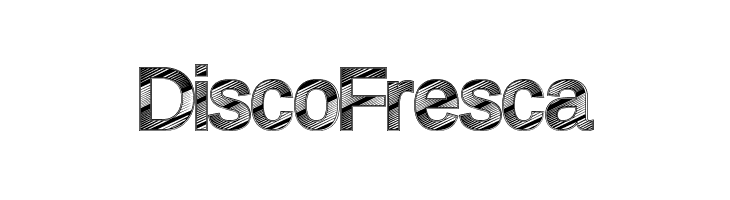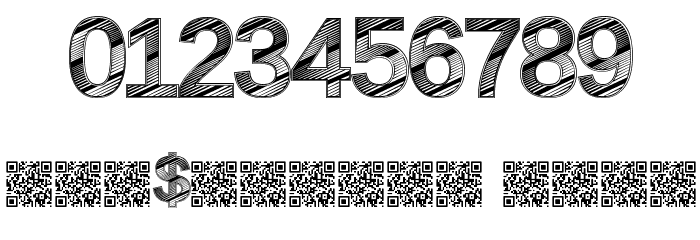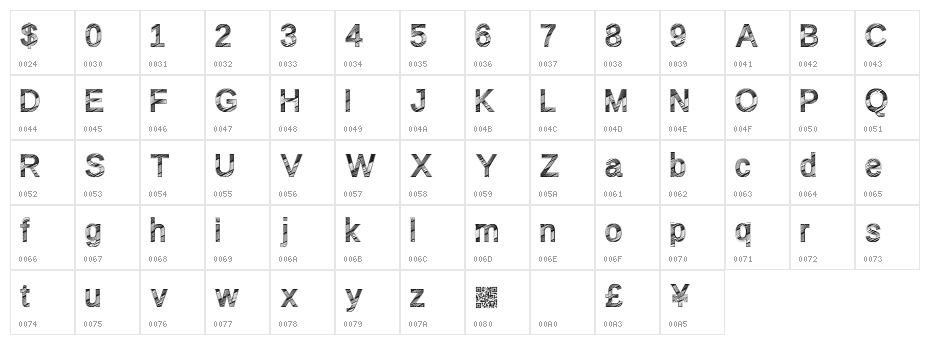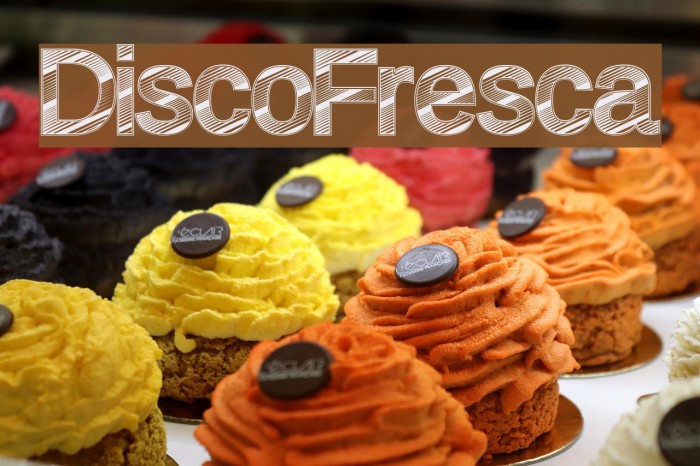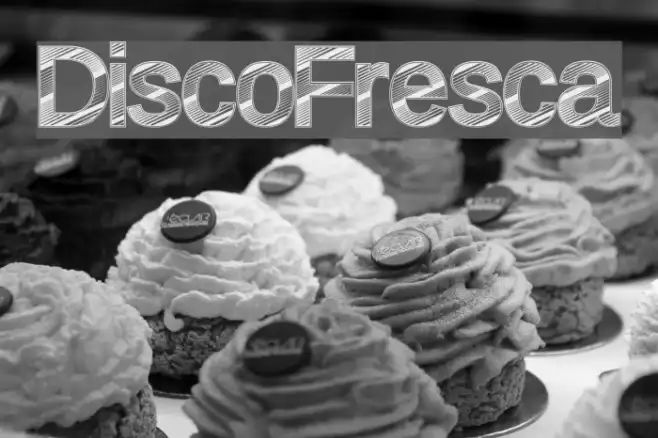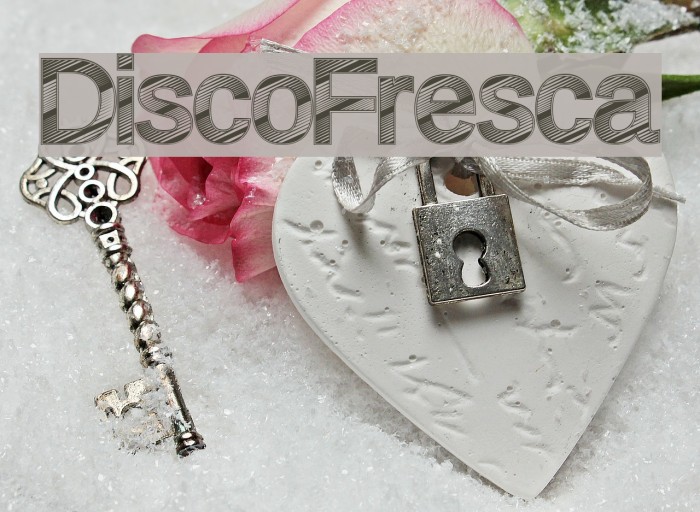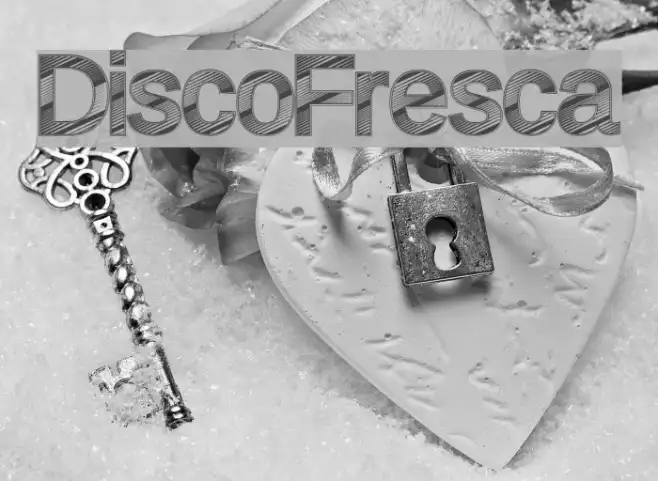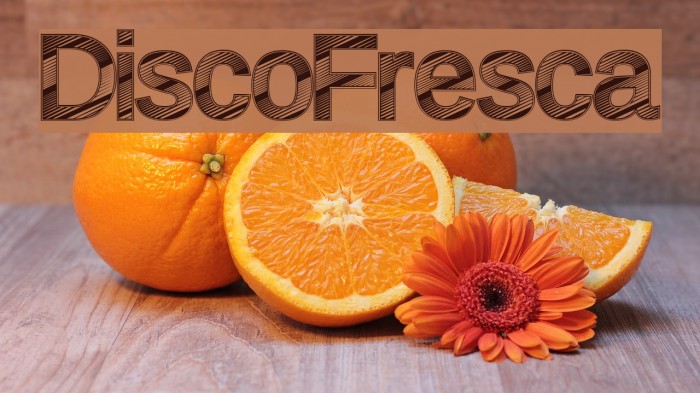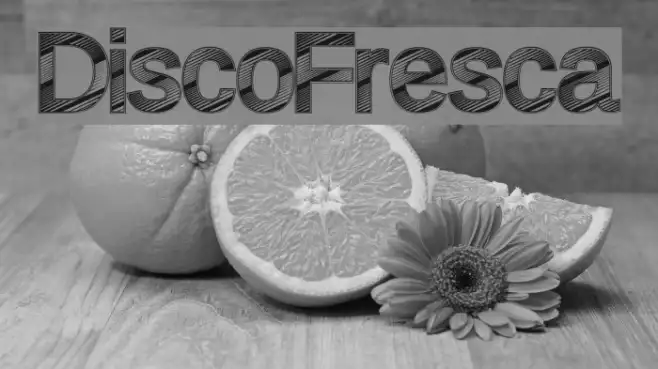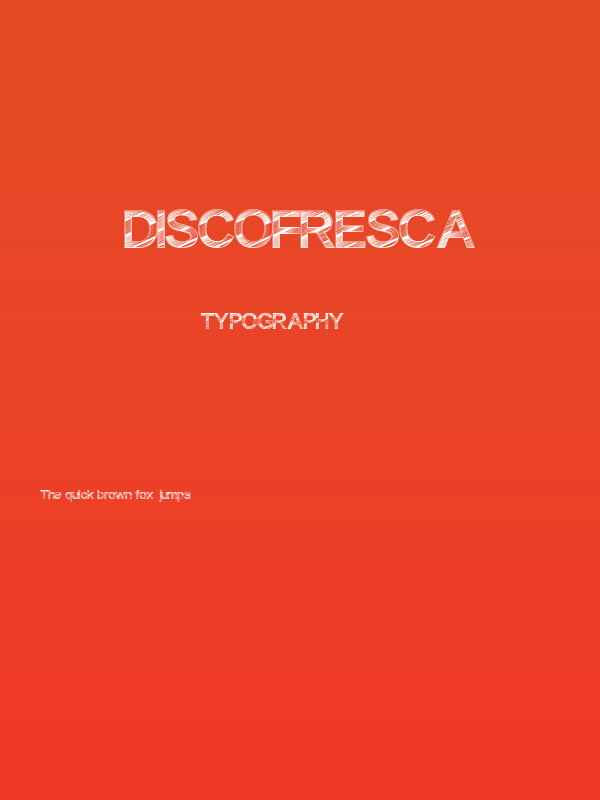
DiscoFresca Font
DiscoFresca Description
This font features a bold, decorative style with a unique cross-hatched pattern filling each character. The uppercase and lowercase letters maintain a consistent width, giving a uniform appearance across the alphabet. The numbers and special characters follow the same design, ensuring a cohesive look. The font's distinct style makes it stand out, with a modern twist on traditional letterforms. The cross-hatching adds texture and depth, making it ideal for eye-catching designs. The characters are well-spaced, providing clarity and readability despite the intricate pattern.
| Proposed Projects | Ideal for posters, album covers, branding, and any project requiring a bold, artistic touch. |